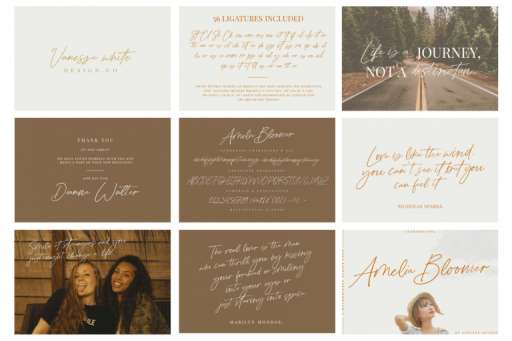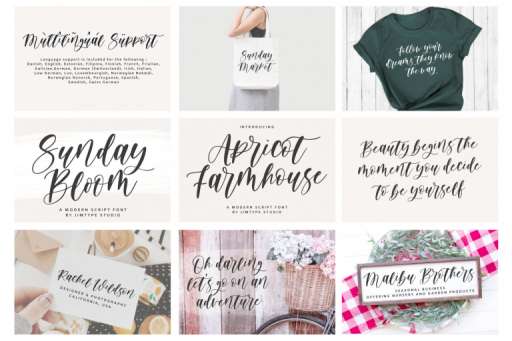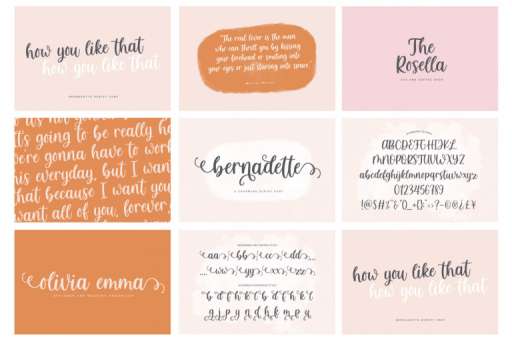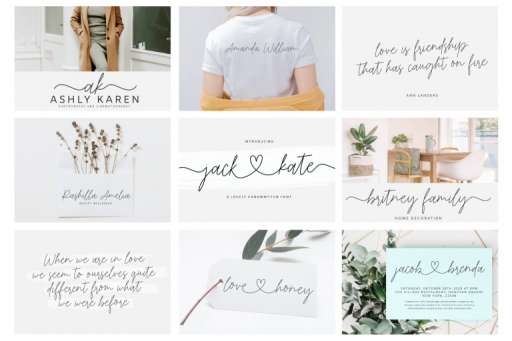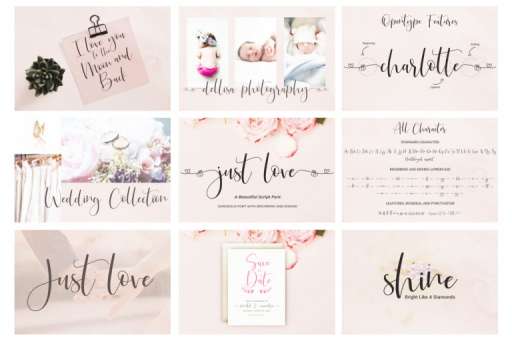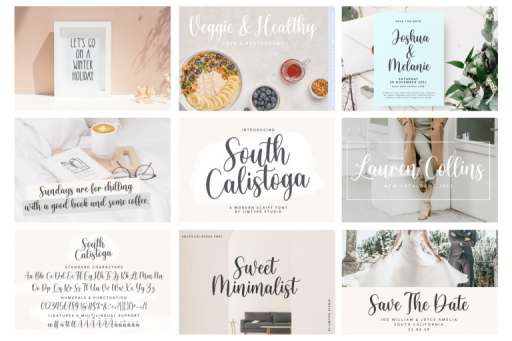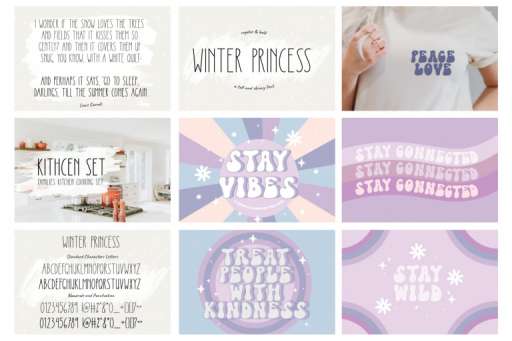
Popular Font Bundle - Font From Jimtype Studio
Amelia Bloomer Font
Apricot Farmhouse Font
Bernadette Font
Jack and Kate Font
Just Love Font
Just Love Diamond Font
South Calistoga Font
Stay Vibes Font
Winter Princess Font
Winter Princess Bold Font
Popular Font Bundle
The popular fonts on our website are now available for the bundle, all our new best-selling unique fonts!
Popular Bundle is a cute 8 handwritten font for crafters and designers.